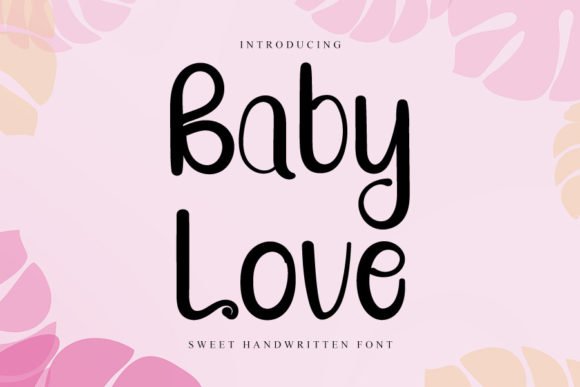
Enter the Baby Love Font, a stunning handwritten font that exudes a contemporary atmosphere and impeccable form. Designed to enhance the beauty of your projects, this font is perfect for adding a touch of elegance and sophistication to your designs. With its balanced and varied style, the Baby Love Font is a valuable addition to any designer’s toolkit, offering endless possibilities for creative expression.
Baby Love Font Key Features
- Unique Characteristics: Whimsical and playful design, ideal for baby-related products and children’s content
- Font Style: Cursive, script, and handwritten font styles available
Baby Love Font Review
- Playful and Whimsical Feel: The font has a lovely, lighthearted vibe that’s perfect for baby-related designs, like nursery decor or kids’ clothing.
- High-Quality Glyphs: The font’s characters are well-designed and look great at various sizes, making it a good choice for posters, invitations, or social media graphics.
- Unique Character: The font’s distinctive style helps it stand out from more generic sans-serif fonts, adding a touch of personality to any design.
- Limited Versatility: The font’s playful style might not be suitable for more serious or formal designs, like business cards or resumes.
- No Support for Non-Latin Scripts: If you need to work with languages other than English, the font might not be a good choice.
- Not Ideal for Small Text: While the font looks great at larger sizes, it can become difficult to read at smaller sizes, which might limit its use in certain applications.
Overall, I think the Baby Love Font is a great choice for designers who need a playful, whimsical font for baby-related projects. However, it may not be the best fit for more formal or diverse design projects.
The Baby Love Font is perfect for designing baby-related products, such as baby blocks, onesies, and nursery decor.
Use it to create a cohesive and adorable brand identity for your baby-related business.